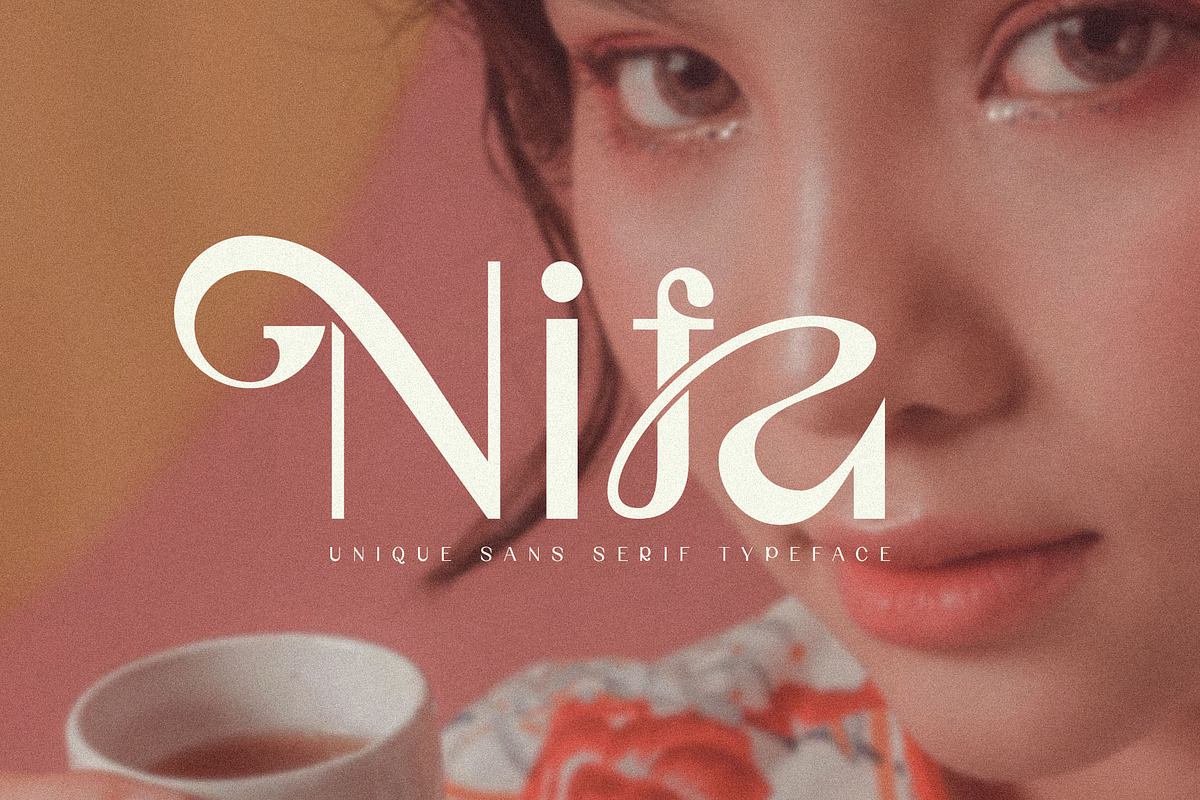
Nifa Ligature Sans Serif Typeface Free Download
The Nifa Ligature Sans Serif Typeface Free Download is a sleek, modern font that combines clean lines with stylish ligatures, making it perfect for contemporary design projects. Whether you're creating a logo, website, or advertising materials, this typeface offers a polished and professional appearance. Please note that for commercial use, you will need to purchase a license. You can download it for free for testing purposes.
This versatile font features smooth, connected characters that give your designs a unique and cohesive look. The Nifa Ligature Sans Serif Typeface Free Download is ideal for projects requiring modern elegance and clarity. Whether it's for digital or print applications, this font provides a fresh and stylish touch.